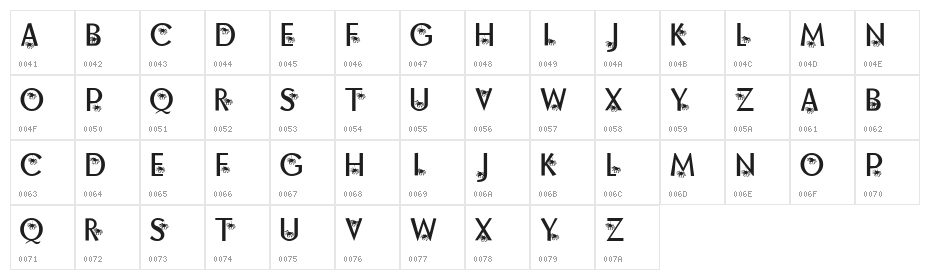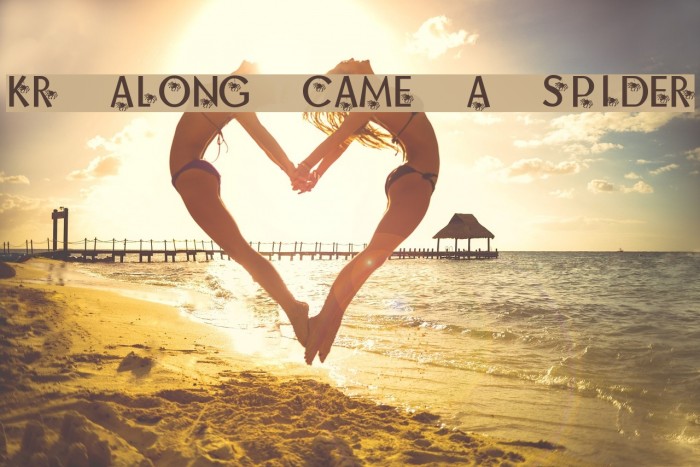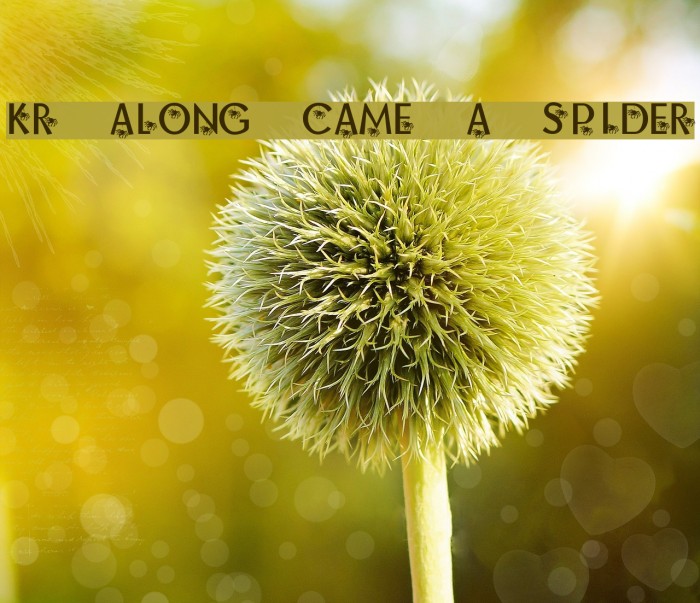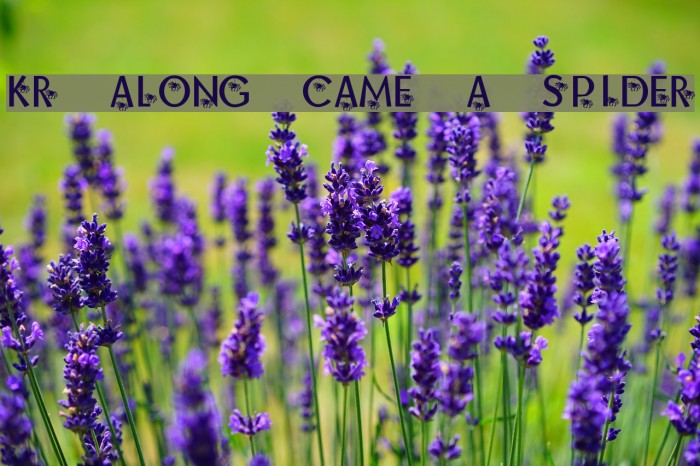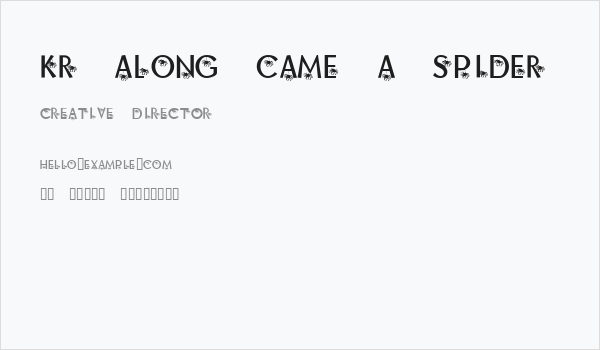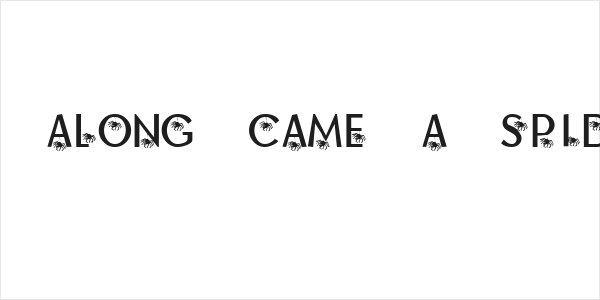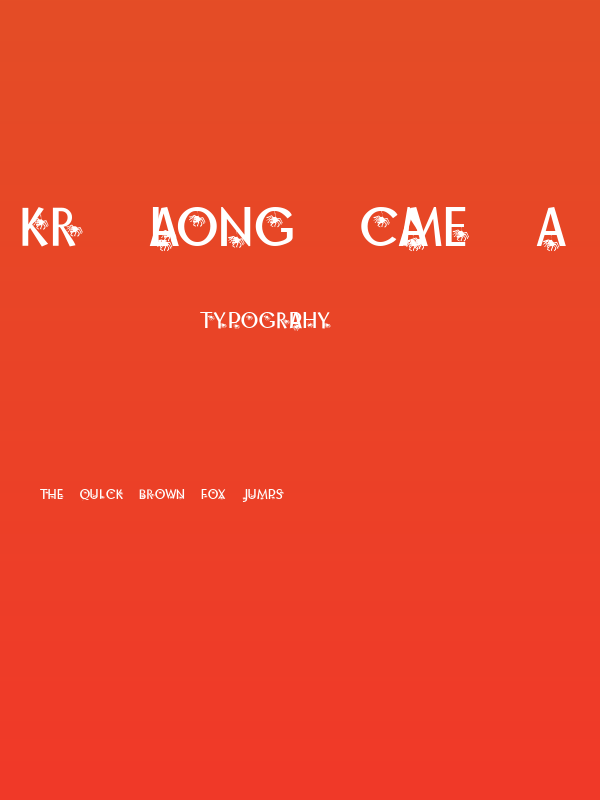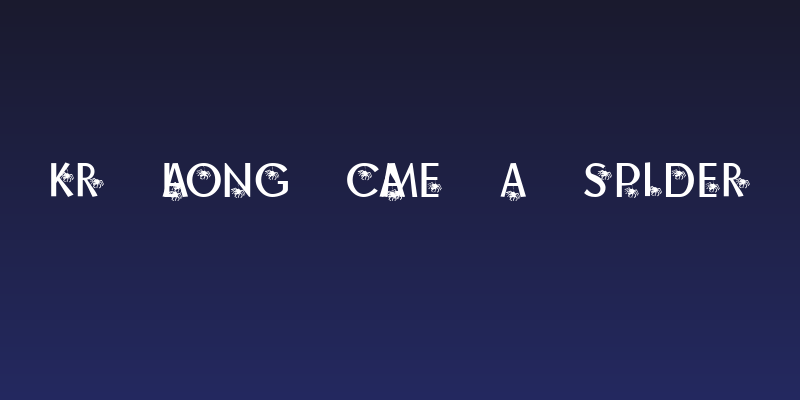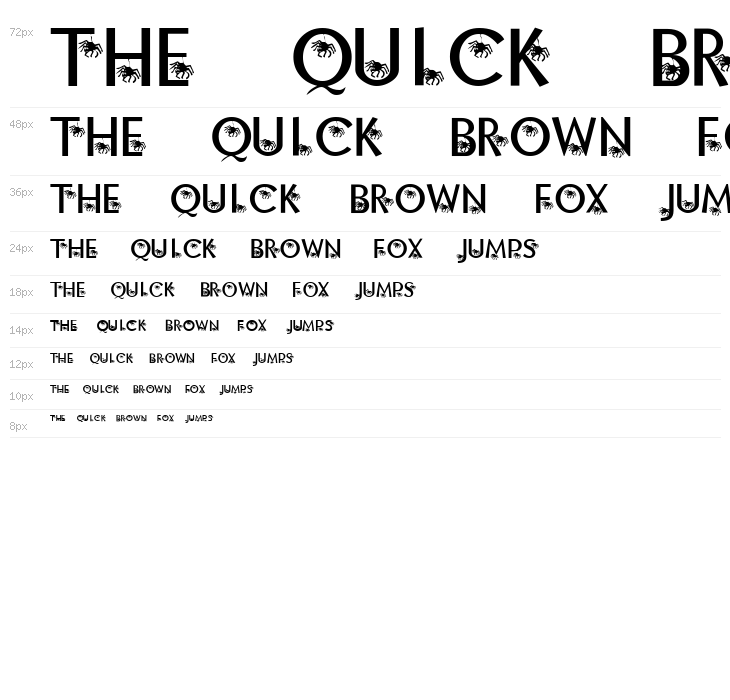
KR Along Came A Spider Font
KR Along Came A Spider Description
This decorative font features a playful and spooky design, incorporating spider motifs into the characters. The uppercase and lowercase letters are bold and striking, with each letter adorned by a small spider, adding a unique and thematic touch. The font is perfect for Halloween-themed projects or any design that requires a touch of whimsy and creepiness. The characters are evenly spaced, ensuring readability while maintaining the decorative elements. The overall style is modern with a playful twist, making it suitable for creative and themed applications.
Use CaseHeadlines, Logos, Themed Designs
Proposed ProjectsPerfect for Halloween invitations, themed posters, party decorations, and creative branding projects.